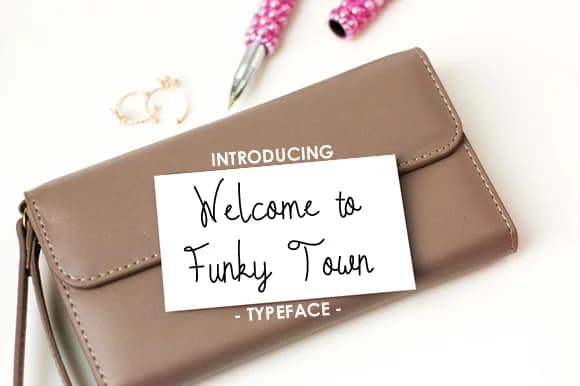
About Welcome to Funky Town Font
Welcome to Funky Town Font by yh.seaofknowledge is a monoline script that brings playful energy to contemporary design work. The clean, flowing letterforms combine legibility with distinctive character, making it an excellent choice for designers seeking a script font that maintains genuine readability across various applications. This versatile typeface is perfect for wedding invitation suites with a modern aesthetic, Etsy product labels for artisan goods and handmade items, boutique packaging for cosmetics and skincare brands, and personalized greeting cards that celebrate individual style. The friendly visual appeal delivers impact without sacrificing the clarity needed for functional design applications.
The font's consistent line weight makes it equally effective for display-level headlines and complementary body text pairings. Designers frequently choose this style for vibrant social media graphics, DIY craft signage that demands personality, and creative event materials where whimsy enhances the overall composition. Its approachable aesthetic translates beautifully to small business branding, children's book illustrations, and specialty packaging where character matters as much as functionality.
The monoline construction ensures smooth character connections and consistent rendering across different sizes and applications. Welcome to Funky Town maintains its playful charm while adapting to diverse creative contexts. Discover this font on Creative Fabrica and bring engaging personality to your next design project.
Welcome to Funky Town Font is a script font that shines as a display or heading face. Pair it with a clean sans-serif or serif font for body text β the contrast creates a clear hierarchy while the two styles stay balanced and easy to read.